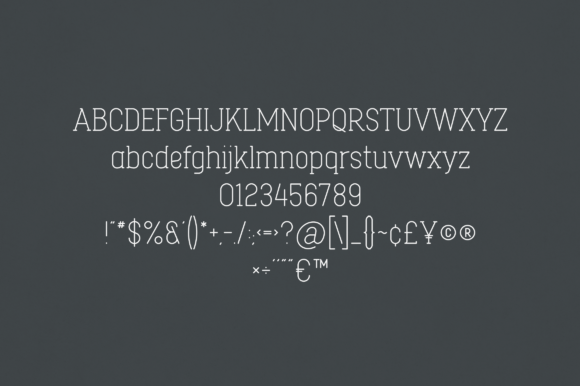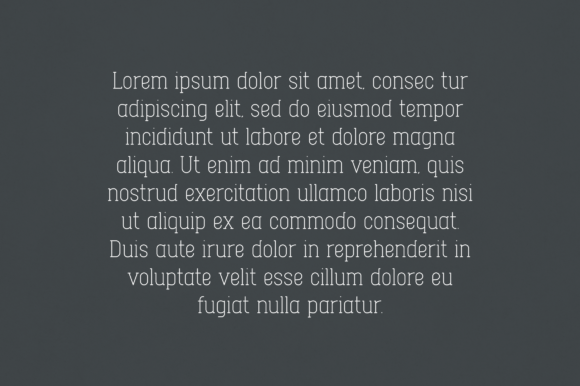
Cork Font: Elevate Your Typography with Elegance and Versatility
Are you tired of using the same old fonts for your design projects? Look no further than Cork Font, an elegant and versatile slab serif font that is sure to make your typography truly unique. With its sophisticated charm and wide range of applications, Cork Font is the perfect choice for designers and crafters looking to add a touch of luxury to their work.
The Characteristics of Cork Font
Cork Font is a slab serif font, characterized by its distinctive rectangular serifs and elegant letterforms. Its unique design makes it stand out from more traditional fonts, giving it a stylish and modern edge that is sure to capture attention. The font’s versatility is also one of its key strengths, making it suitable for a wide range of applications, from logos and branding to headlines and plain text.
Why Choose Cork Font?
So why should you choose Cork Font for your next design project? Here are just a few reasons why this font stands out from the crowd:
- Elegance: Cork Font exudes elegance and sophistication, making it perfect for high-end branding projects, luxury product packaging, and stylish magazine headers.
- Versatility: Whether you’re designing a logo, creating a headline, or simply adding a text overlay to a background image, Cork Font is versatile enough to adapt to any design need.
- Uniqueness: With its distinctive slab serif design, Cork Font is sure to make your typography stand out from the crowd and leave a lasting impression on your audience.
Applications of Cork Font
Cork Font is suitable for a wide range of design applications, including:
- Branding Projects: Use Cork Font to create a sophisticated and memorable brand identity that will set you apart from the competition.
- Home-Ware Designs: Add a touch of elegance to your home-ware designs, from product packaging to catalogs and marketing materials.
- Product Packaging: Cork Font is perfect for luxury product packaging, adding a touch of sophistication and glamour to your products.
- Magazine Headers: Use Cork Font to create eye-catching magazine headers that will grab attention and draw readers in.
- Text Overlays: Add a stylish text overlay to any background image using Cork Font, creating a visually appealing and effective design.
Tips for Using Cork Font
To get the most out of Cork Font, here are a few tips to keep in mind:
- Experiment with Sizes: Cork Font looks great in a variety of sizes, from large headlines to smaller body text. Experiment with different sizes to find the perfect fit for your design.
- Play with Colors: Cork Font is versatile enough to work well with a wide range of colors. Try pairing it with bold, bright colors for a striking effect or more muted tones for a sophisticated look.
- Mix and Match: Don’t be afraid to mix and match Cork Font with other fonts to create a unique and visually appealing design.
Cork Font is an elegant and versatile slab serif font that is sure to elevate your typography to the next level. With its sophisticated charm, wide range of applications, and versatility, it’s the perfect choice for designers and crafters looking to add a touch of luxury to their work. Whether you’re working on a branding project, product packaging, or simply adding a text overlay to a background image, Cork Font is sure to make your design truly unique and memorable.